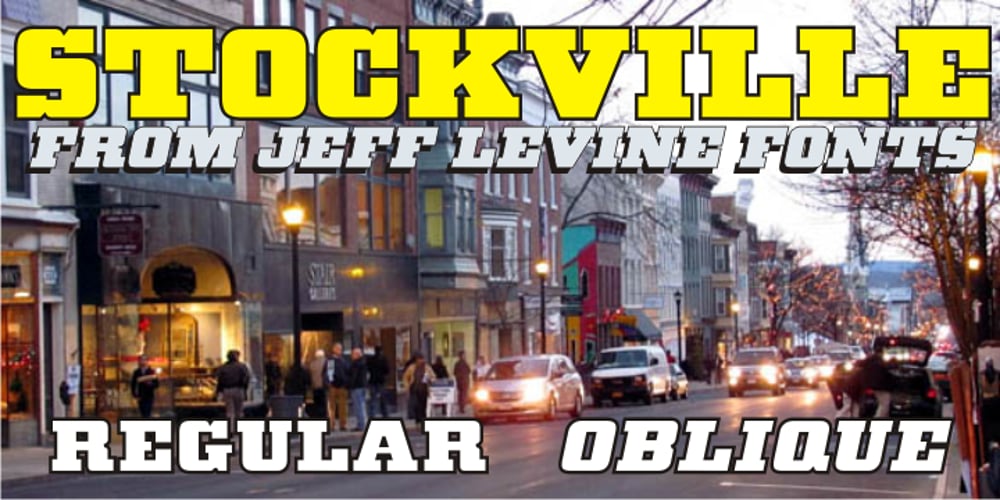
Stockville JNL
Stockville JNL font
Stockville JNL Font Family was designed by Jeff Levine and published by Jeff Levine. Stockville JNL contains 2 styles and family package options. Stockville JNL is a total rebuild of the wood type design originally found in Arvada JNL. All angular lines were straightened to give the lettering a more classic look. Bold, brash and block style, this headline typeface is available in both regular and oblique styles.